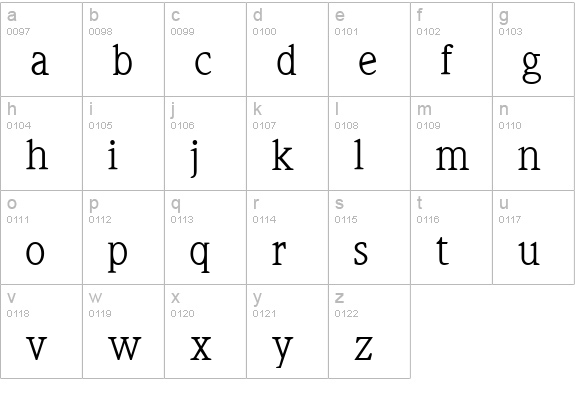
Weidemann Regular is the standard, neutral variant in the Weidemann typeface family \xE2\x80\x94 well suited to general body text, paragraphs, and standard typographic work.
Weidemann Regular font is a classic and timeless serif typeface that exudes elegance and sophistication. Its clean and balanced letterforms make it perfect for a wide range of design projects, from branding and advertising to editorial layouts and signage. With its strong vertical strokes and subtle serifs, Weidemann Regular font strikes the perfect balance between tradition and modernity. It is a versatile typeface that can be used for both headlines and body text, providing excellent legibility and readability in any context. One of the best things about Weidemann Regular font is that it is free to download at FontsMarket.com. This means that you can easily access and use this beautiful typeface in your designs without having to worry about any licensing restrictions. Whether you are a professional designer or a student working on a personal project, having access to high-quality fonts like Weidemann Regular can greatly enhance your creative work. So, if you are looking for a timeless and elegant serif font that is freely available to download, look no further than Weidemann Regular font. With its refined letterforms and versatile nature, it is sure to bring a touch of sophistication to any design project. Start exploring the possibilities today and let Weidemann Regular font elevate your typography game.